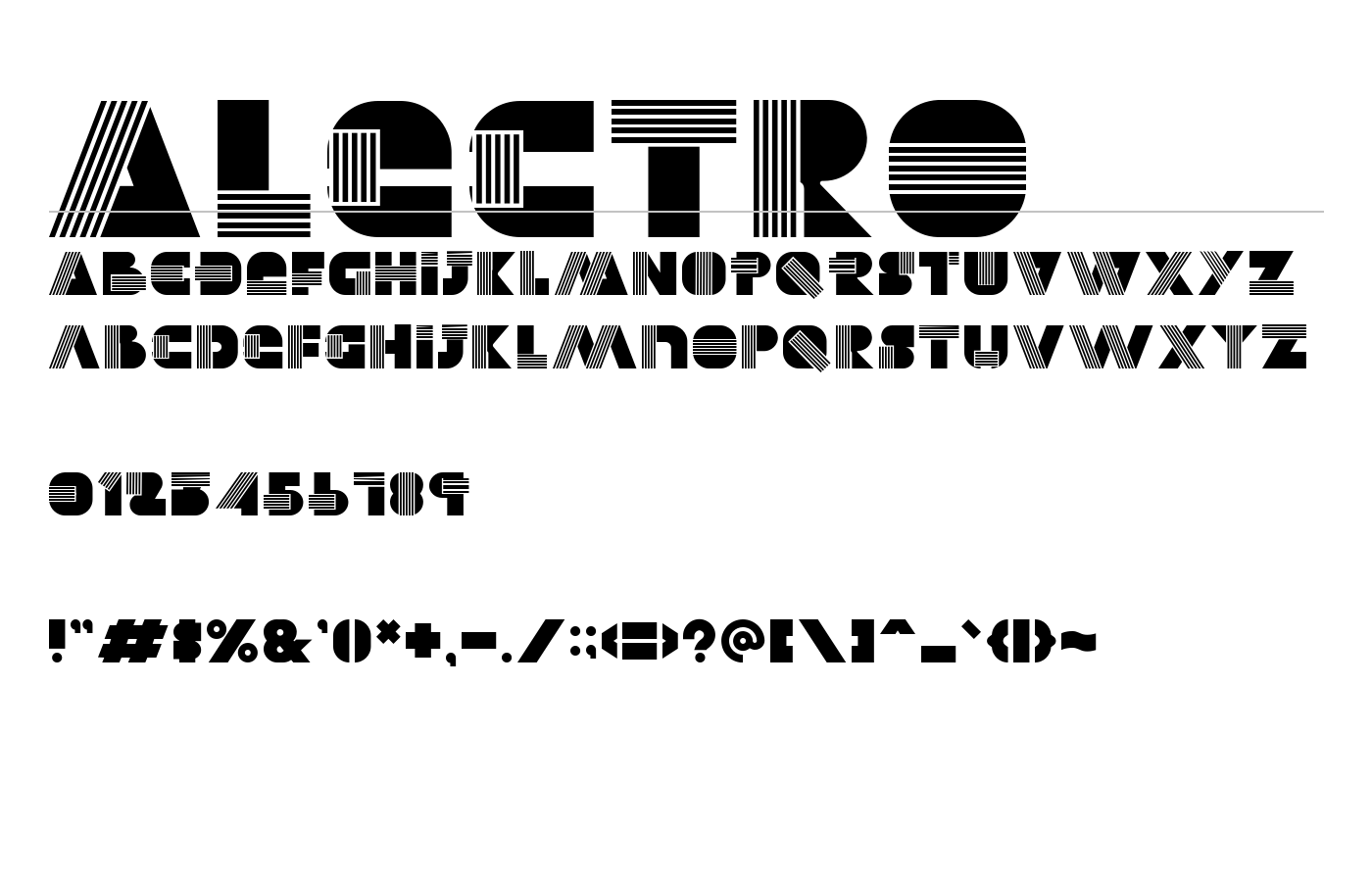
Alectro is a bold, modern display font featuring a striking blend of solid shapes and fine horizontal stripes that create dynamic contrast and visual interest. Its geometric forms and high-impact style make it perfect for attention-grabbing headlines, posters, and branding where a futuristic, edgy personality is desired. This font stands out in designs aiming to convey energy, innovation, and a contemporary vibe.
Alectro Font
About Alectro Font